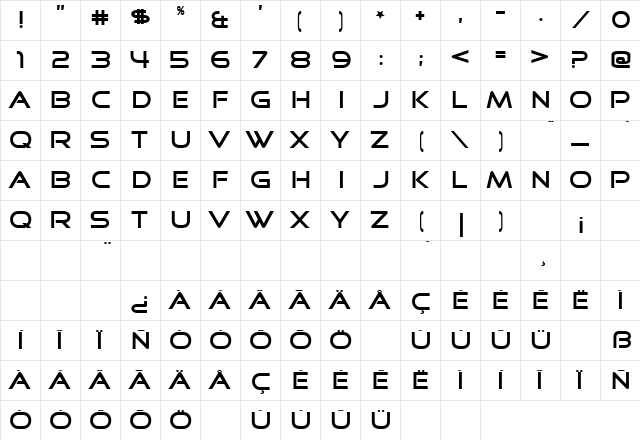
Good Times Regular
Design Context for Good Times Typeface
Good Times offers clean, dependable letterforms without strong stylistic allegiance, making it a practical choice for designers who need flexibility.